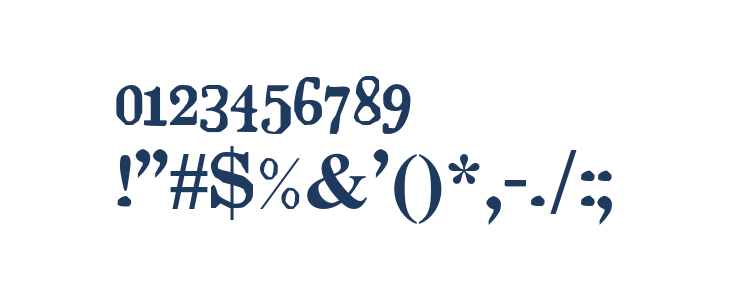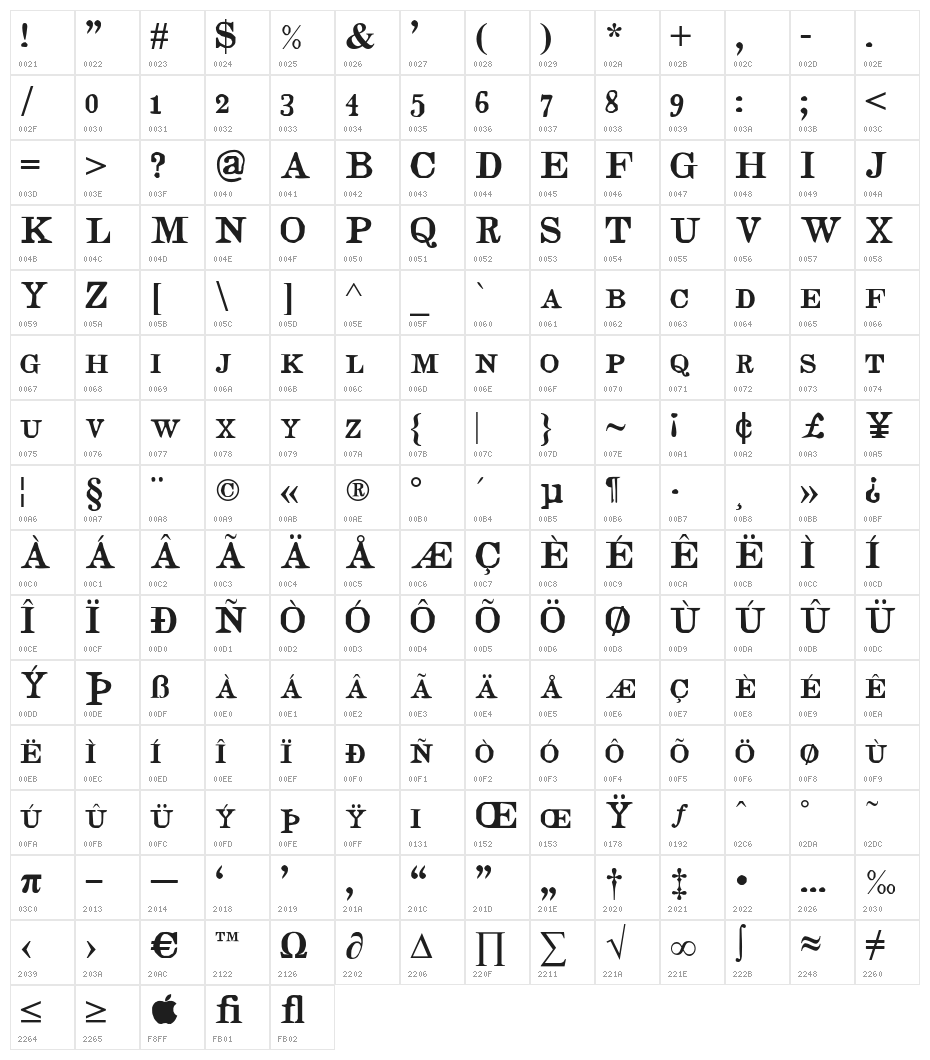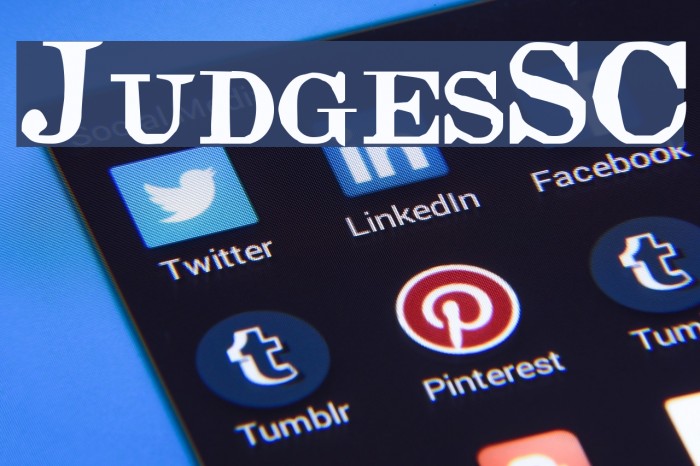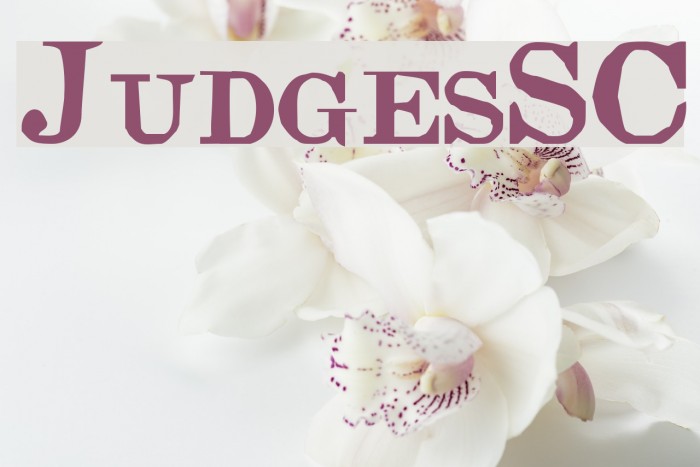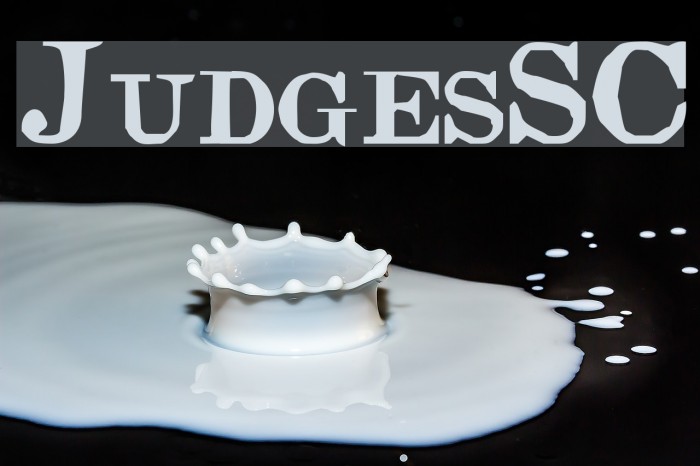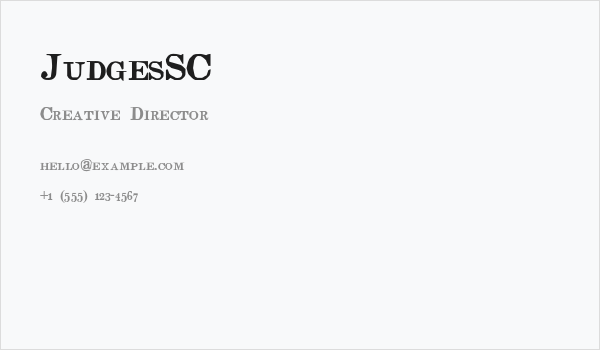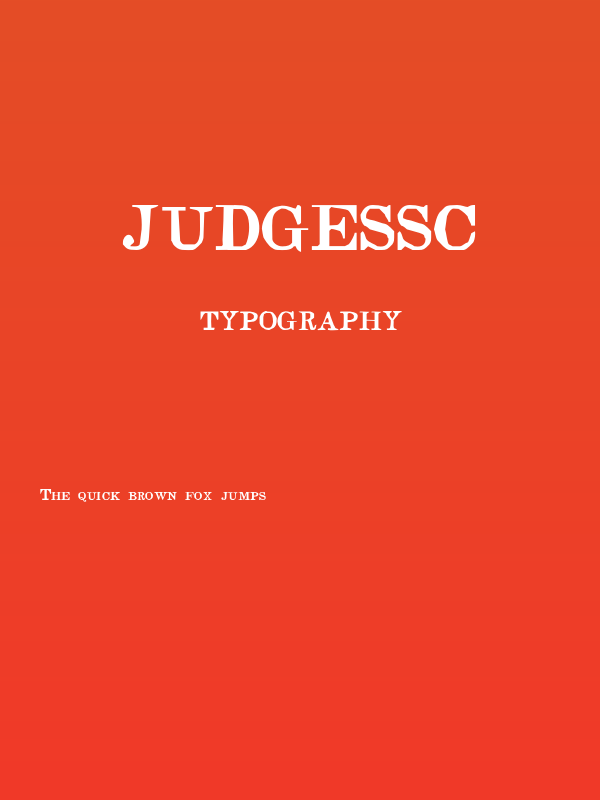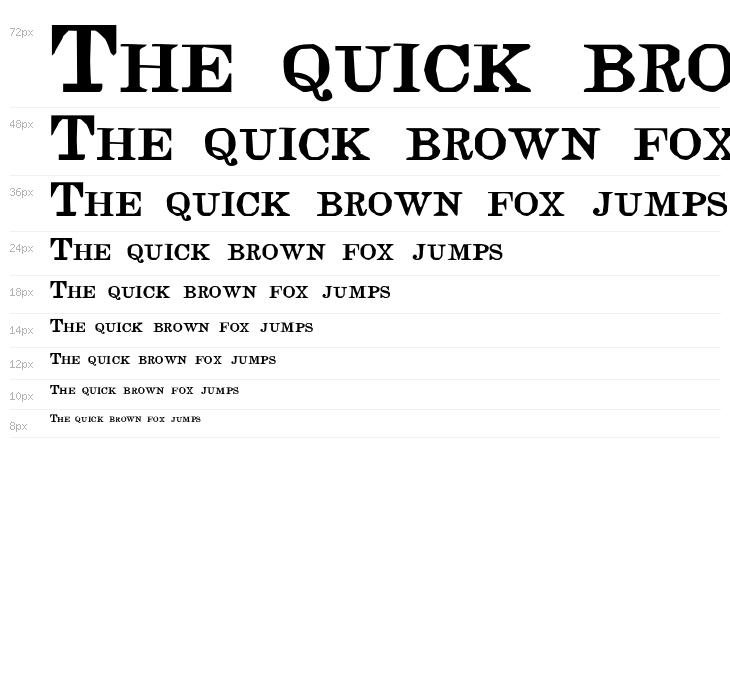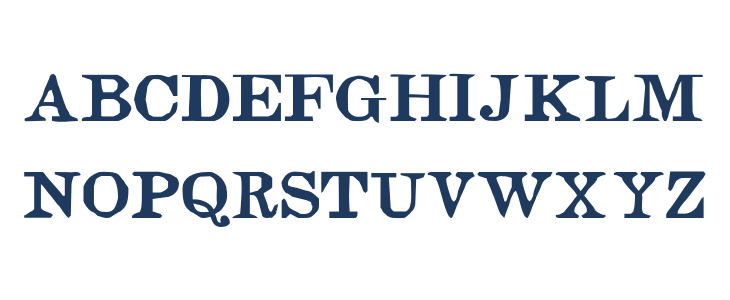
JudgesSC Font
JudgesSC Description
This font exudes a classic and authoritative presence, characterized by its bold and prominent serifs. The uppercase letters are robust and well-defined, with a slightly condensed appearance that enhances their impact. The lowercase letters maintain a consistent style, offering a harmonious balance between elegance and readability. The numerals are distinct and clear, ensuring legibility in various contexts. Special characters are crafted with precision, adding to the font's versatility. Overall, this font is ideal for projects that require a strong and traditional aesthetic.
WidthCondensed
Character SpacingMonospaced
ContrastHigh
Overall StyleClassic
Use CaseHeadlines, Logos, Formal documents
Proposed ProjectsIdeal for book covers, formal invitations, certificates, and branding materials that require a traditional and impactful look.